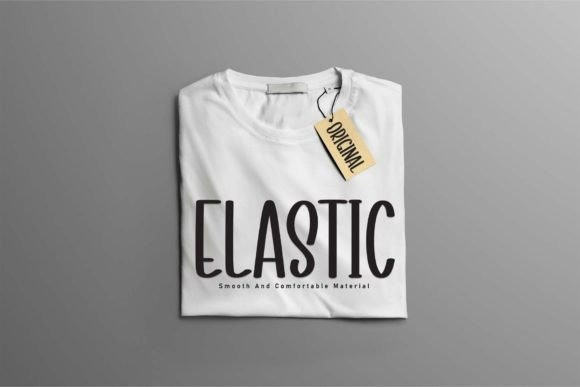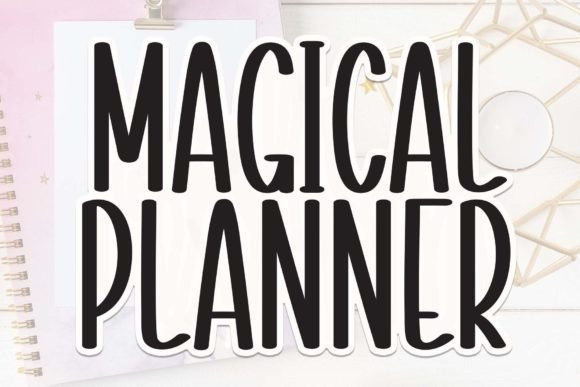
Magical Planner Font
Magical Planner is a sweet and friendly handwritten font. Its natural and unique style makes it incredibly fitting to a large pool of designs. The only limit is your imagination!